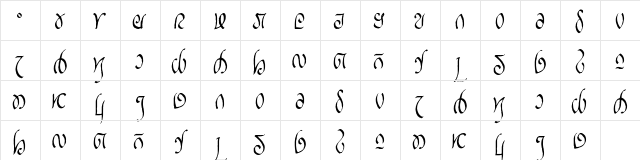
Rellanic Regular Free Font
Rellanic Regular
Foundry: Neale Davidson
Designer: Neale Davidson
Design Context for Rellanic
Rellanic is a composed and adaptable typeface that performs quietly and consistently across a wide range of design contexts.